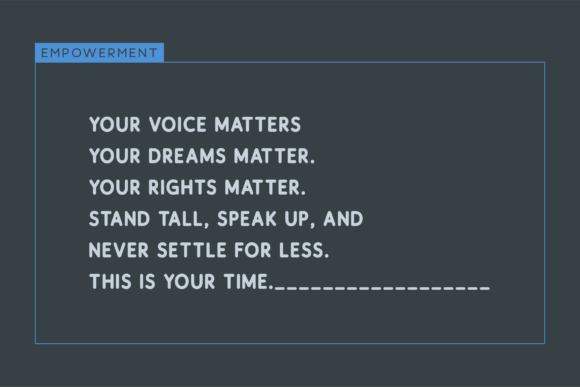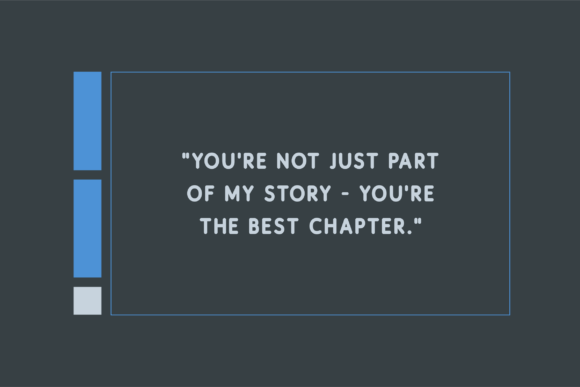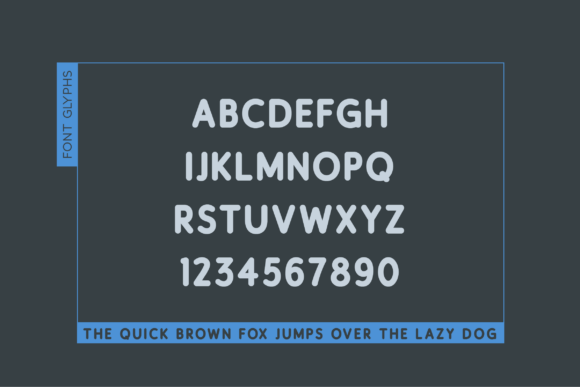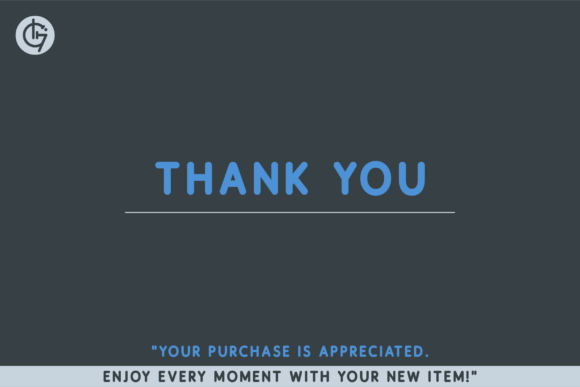
The Delightful Gingerline Font: A Whimsical Addition to Your Design Arsenal
I still remember the time I was working on a project for a client who wanted a custom wedding invitation design. I had all the elements ready – the beautiful floral illustrations, the elegant layout, and the heartfelt text – but something was missing. That’s when I realized I needed the perfect font to bring it all together. After hours of browsing through font libraries, I stumbled upon the charming Gingerline Font. It was love at first sight! ✨
A Personal Review of Gingerline Font
As a designer, I’m always on the lookout for fonts that can add a touch of personality to my projects. Here’s what I love about Gingerline:
- ✨ Whimsical yet simple: Gingerline has a delightful playfulness to it, making it perfect for designs that need a bit of charm.
- ✅ Extensive character set: It includes uppercase A-Z letters, digits 0-9, accented characters, and essential punctuation, making it versatile for various design projects.
- ✅ Smooth and elegant: The font’s smooth lines and curves make it perfect for both digital and print designs.
While Gingerline is a fantastic font, it’s not without its quirks:
- ⚠️ Limited to all caps: As an all-caps font, it might not be suitable for designs that require a mix of uppercase and lowercase letters.
- 🤔 No italic or oblique versions: If you’re looking for a font with italic or oblique versions, Gingerline might not be the best choice.
The Story Behind Gingerline Font
Gingerline was designed by a talented type designer who wanted to create a font that would bring a touch of whimsy and playfulness to designs. Inspired by the charm of handwritten letters and the simplicity of digital fonts, Gingerline was crafted to be a versatile and delightful addition to any design project.
| Font Name | Gingerline Font |
| Author | Goliatte Studio |